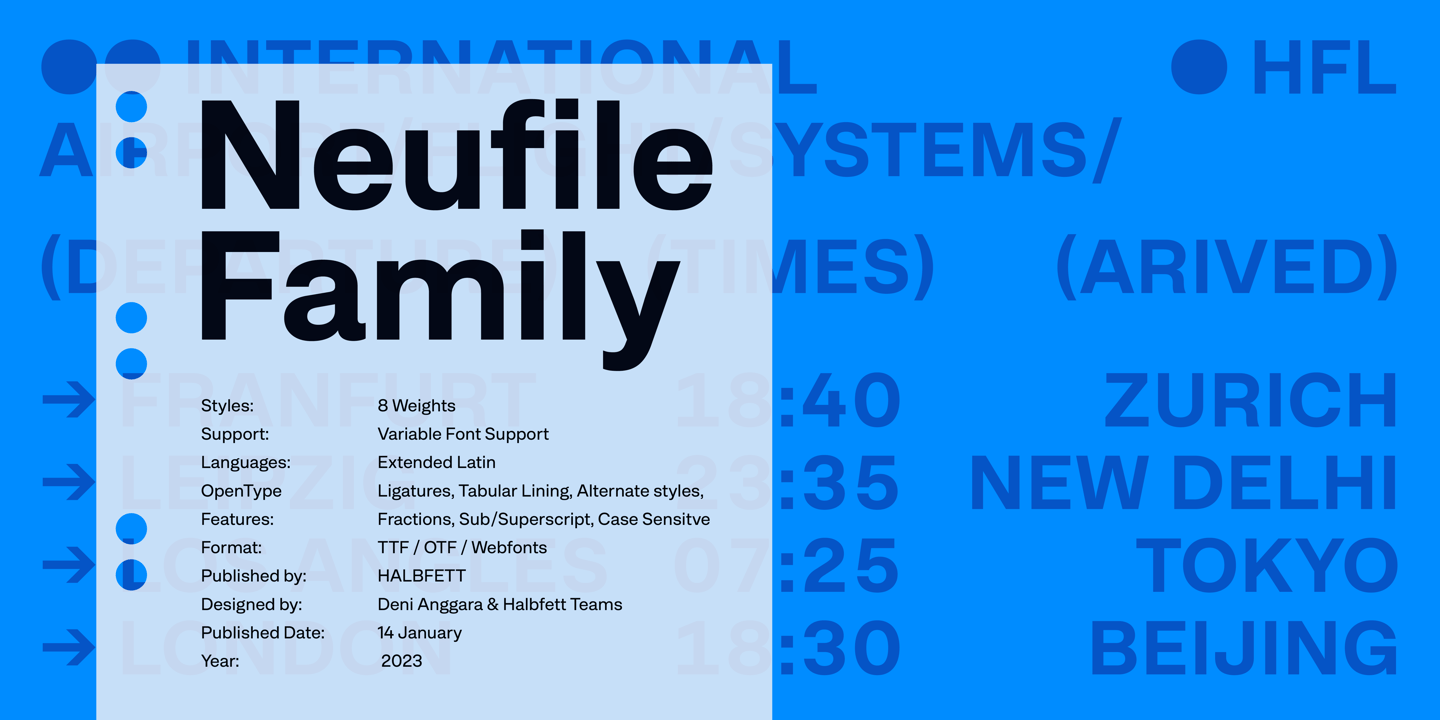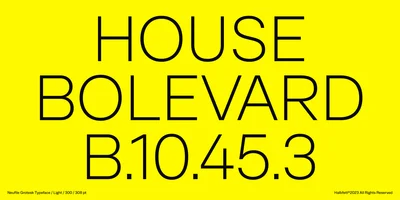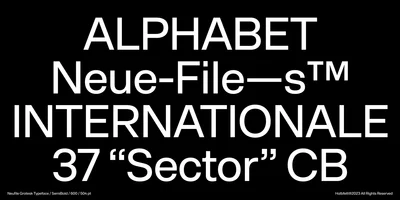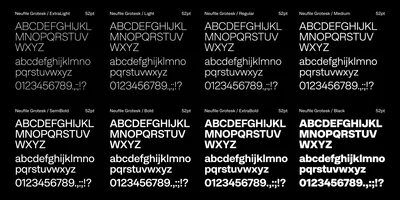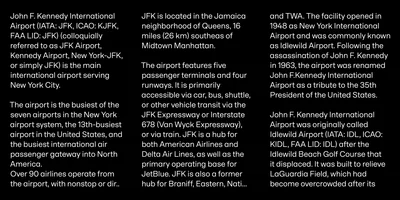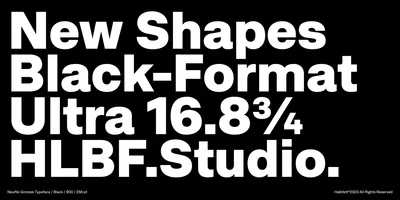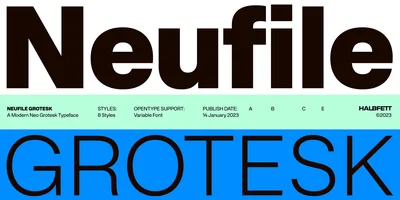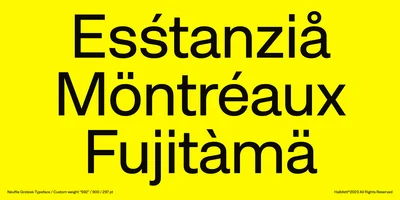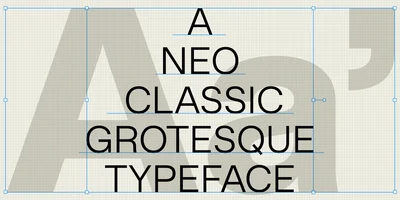
Inter vs Neufile Grotesk
Inter is a popular open-source alternative to Neufile Grotesk's neo-grotesque design. At 88% similarity, Inter delivers a modern, clean aesthetic. Compare which works better for branding and ui projects.
Recommended: Inter
- Shares Neufile Grotesk's minimal, modern character
- Variable font with continuous weight adjustment
- Supports 7 scripts including cyrillic and cyrillic-extended
- Delivers a modern, clean, professional aesthetic
- Popular in enterprise-corporate and financial-services design
Consider: Neufile Grotesk
- Designed specifically for branding and ui